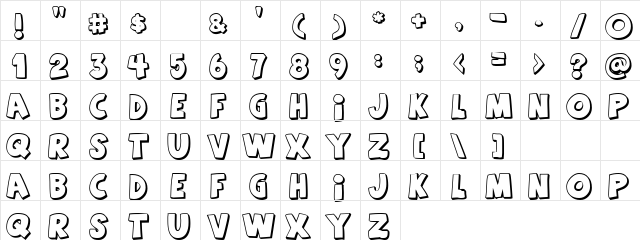
Stephu Gran Regular
Design Context for Stephu Gran Typeface
Stephu Gran is a composed and adaptable typeface that performs quietly and consistently across a wide range of design contexts.